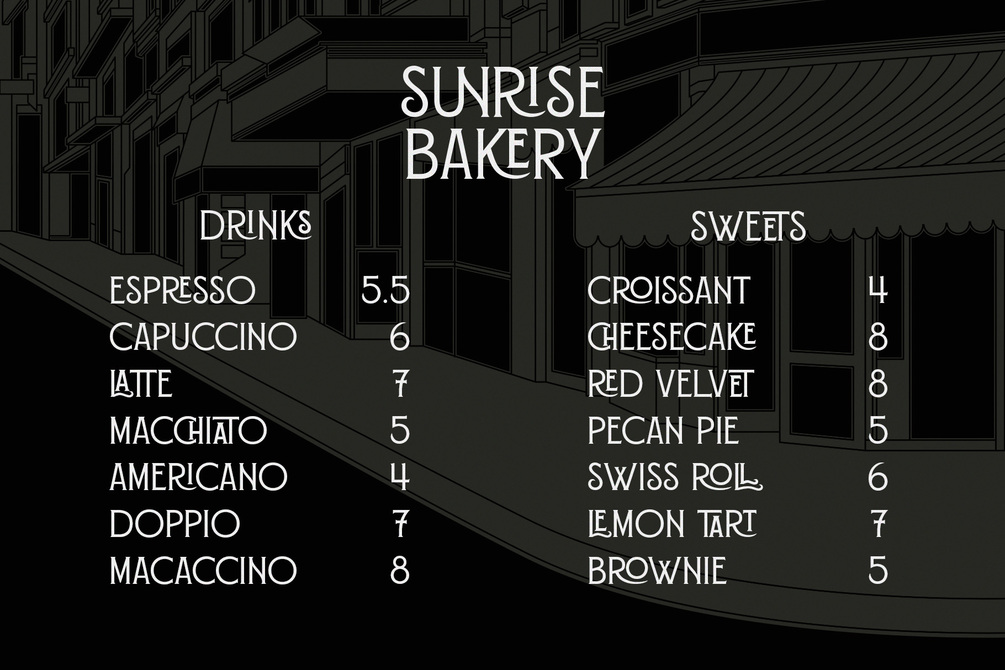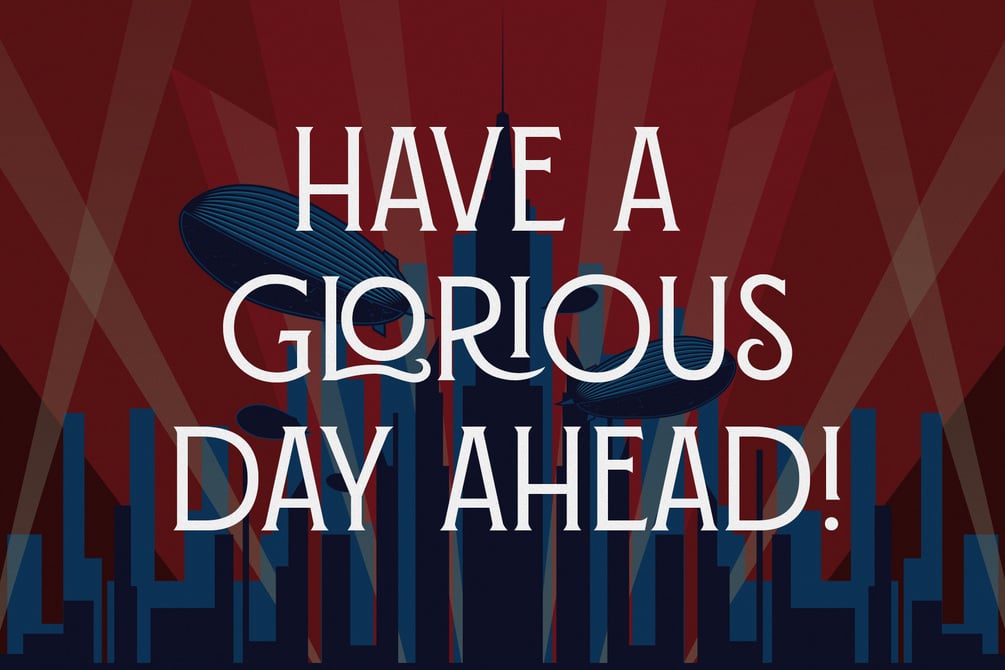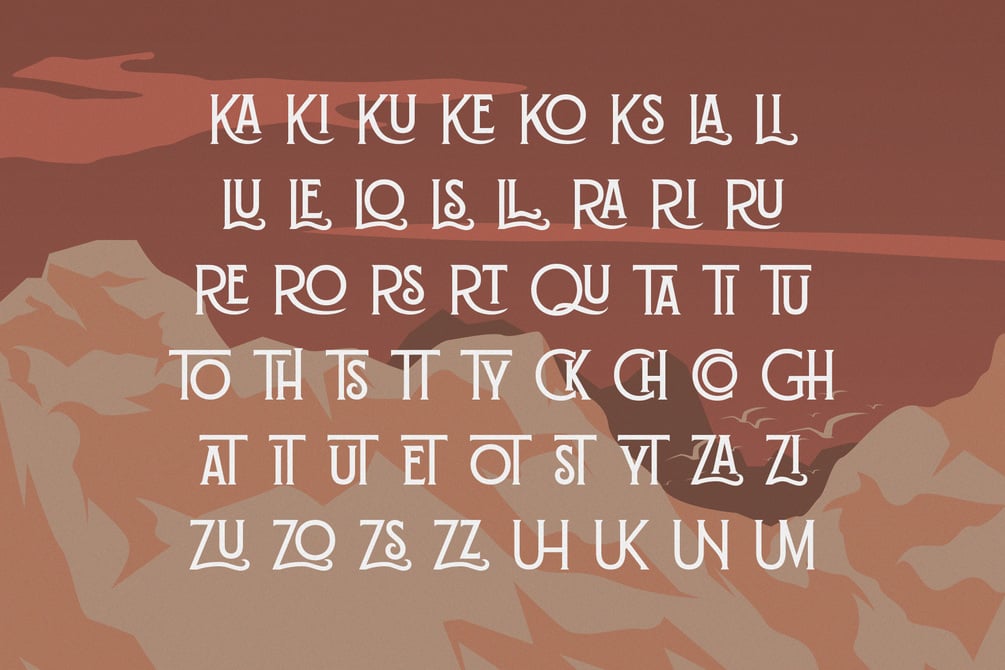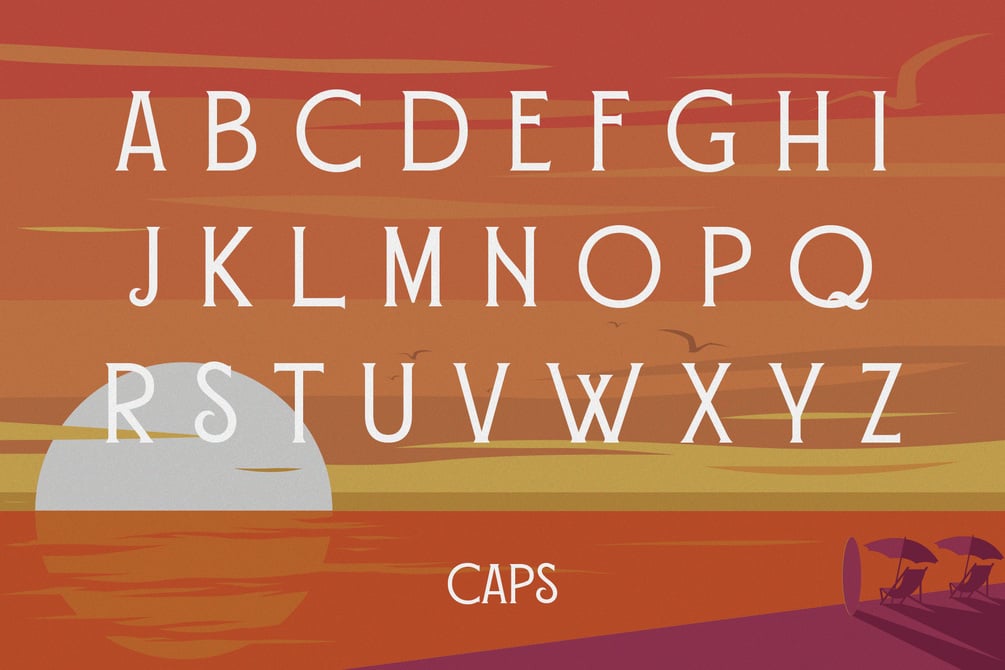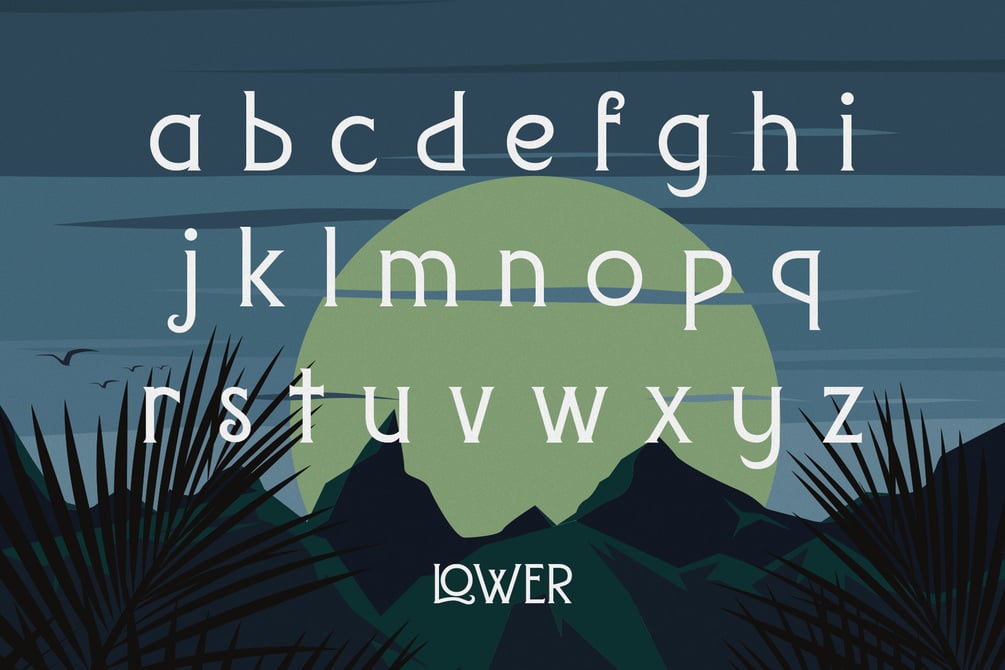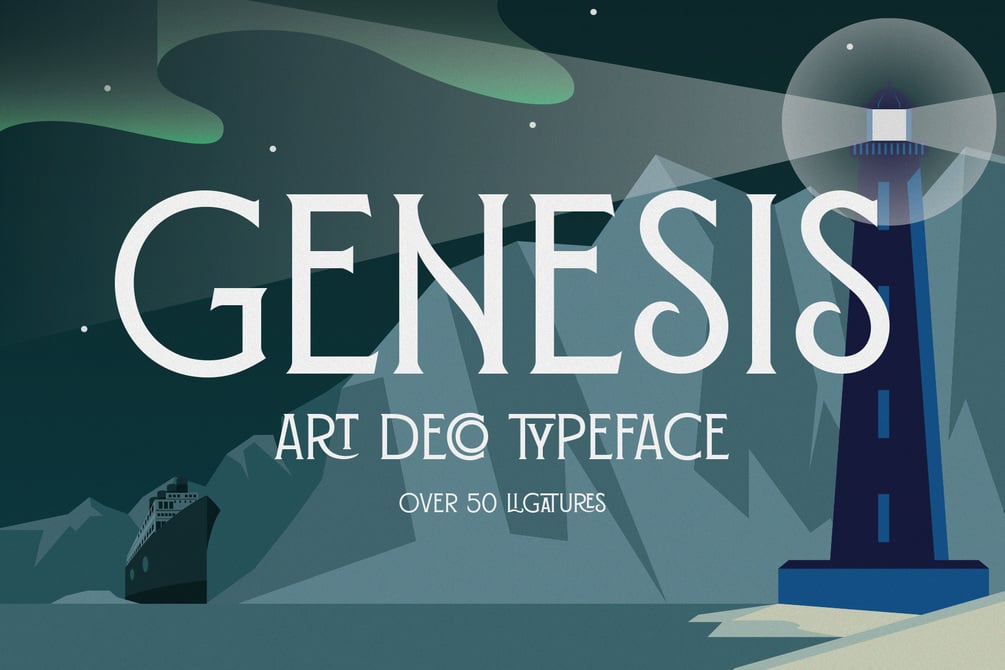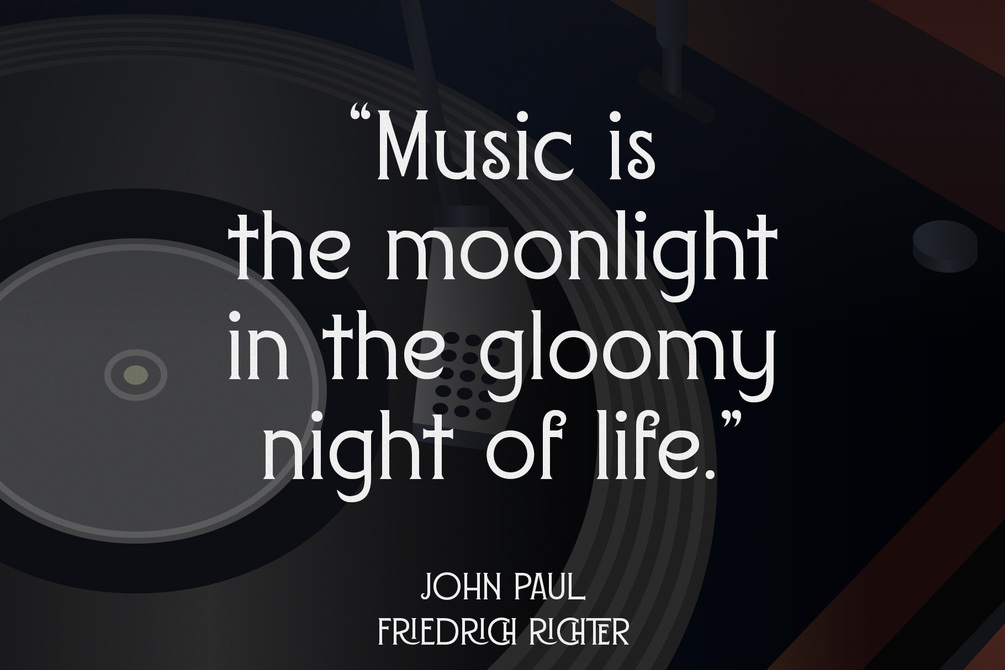
Genesis - Art Deco Typeface
Genesis is a condensed art deco inspired typeface. This font exudes character while remaining useful thanks to a restrained style and modernized construction. With over 50 ligatures, you can be certain that Genesis is versatile and pleasant to use. Excellent for branding, headlines, magazines, print, books, and much more.